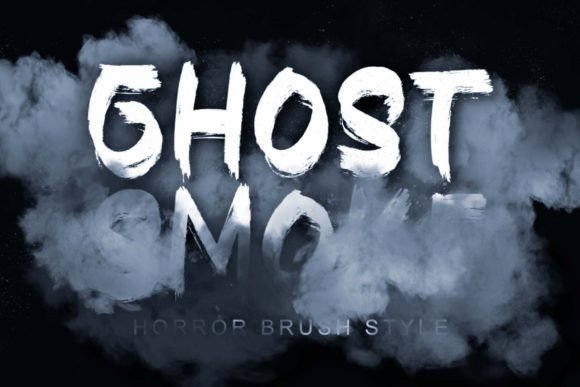
Ghost Smoke Font: The Elegant and Unique Horror Font for Your Creative Projects
The world of typography is vast and diverse, with numerous fonts designed to evoke various emotions and themes. One such font that has gained popularity among designers and artists is the Ghost Smoke font. This elegant and unique horror font is perfect for creating spooky and captivating designs, especially during Halloween and Christmas seasons. In this article, we’ll explore the features and benefits of the Ghost Smoke font, and how it can elevate your creative projects.
What is Ghost Smoke Font?
Ghost Smoke is a horror font that exudes elegance and uniqueness. Its design is inspired by the mysterious and eerie, making it an ideal choice for projects that require a spooky touch. The font comes with a comprehensive set of characters, including uppercase and lowercase letters, numerals, punctuations, and multilingual support. This extensive character set makes it versatile and suitable for various design applications.
Key Features of Ghost Smoke Font
- Uppercase and Lowercase Letters: The font includes both uppercase and lowercase letters, allowing you to create a wide range of designs.
- Numerals and Punctuations: The font also includes numerals and punctuations, making it suitable for creating posters, banners, and other designs that require numerical and textual information.
- Multilingual Support: With multilingual support, you can use the Ghost Smoke font to create designs for various languages and cultures.
Uses of Ghost Smoke Font
The Ghost Smoke font is incredibly versatile and can be used for a wide range of design projects. Here are some of the most popular uses of this elegant horror font:
Popular Use Cases
- Halloween and Horror-themed Designs: The Ghost Smoke font is perfect for creating spooky designs for Halloween, horror films, and other horror-themed projects.
- Christmas and Winter Designs: The font’s elegant and mysterious design also makes it suitable for Christmas and winter-themed designs.
- Branding and Logo Design: The Ghost Smoke font can be used to create unique and captivating logos and branding materials.
- Stickers, Posters, and Prints: The font is also great for creating stickers, posters, prints, and other visual materials.
- Banners and Signage: The Ghost Smoke font can be used to create eye-catching banners and signage for various events and promotions.
Benefits of Using Ghost Smoke Font
The Ghost Smoke font offers several benefits to designers and artists. Here are some of the advantages of using this elegant horror font:
Advantages of Ghost Smoke Font
- Unique and Elegant Design: The Ghost Smoke font features a unique and elegant design that sets it apart from other horror fonts.
- Versatility: The font’s comprehensive character set and multilingual support make it versatile and suitable for various design applications.
- Easy to Read: Despite its horror theme, the Ghost Smoke font is easy to read, making it perfect for creating designs that require clear and concise text.
- High-quality Design: The font is designed with high-quality and precision, ensuring that it looks great in various design applications.
Tips for Using Ghost Smoke Font
To get the most out of the Ghost Smoke font, here are some tips to keep in mind:
Tips for Using Ghost Smoke Font
- Pair it with Other Fonts: The Ghost Smoke font can be paired with other fonts to create a unique and captivating design.
- Experiment with Colors: The font looks great in various colors, so experiment with different colors to find the one that works best for your design.
- Use it for Headings and Titles: The Ghost Smoke font is perfect for creating headings and titles that require a spooky and elegant touch.
- Pay Attention to Kerning: Pay attention to kerning to ensure that the font looks great and is easy to read.
The Ghost Smoke font is an elegant and unique horror font that is perfect for creating spooky and captivating designs. With its comprehensive character set, multilingual support, and high-quality design, it’s suitable for various design applications, including Halloween and Christmas-themed designs, branding, logos, stickers, posters, prints, banners, and more. By following the tips outlined in this article, you can get the most out of the Ghost Smoke font and create stunning designs that leave a lasting impression.